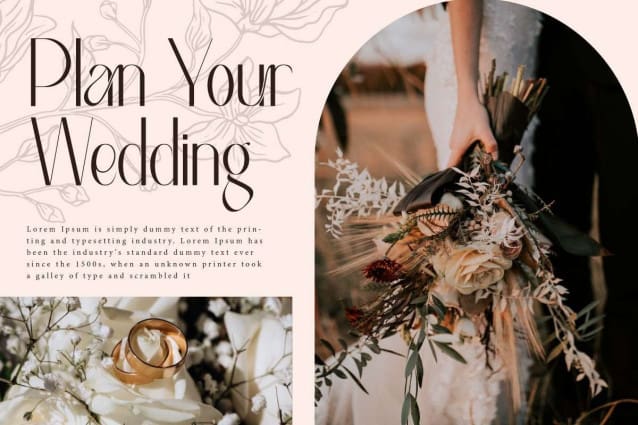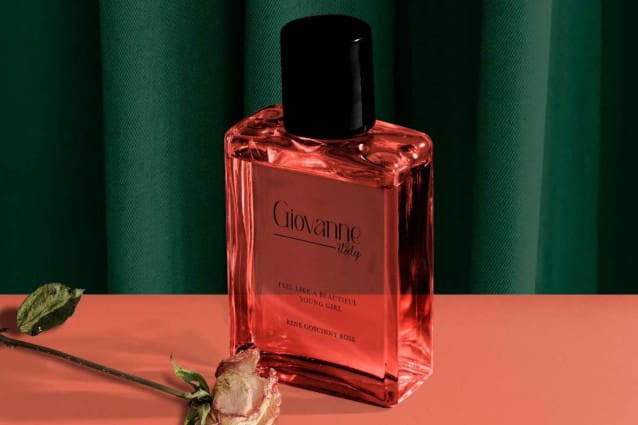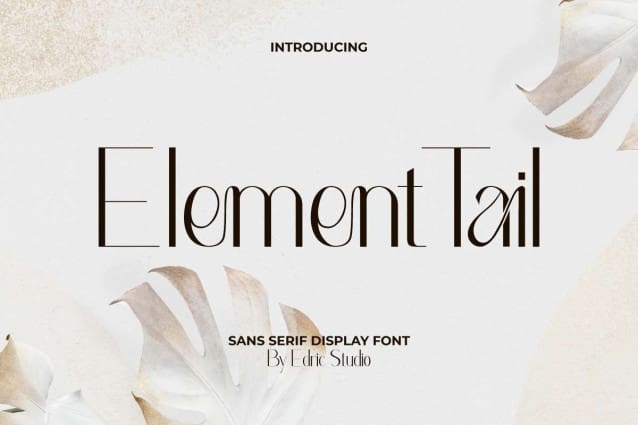
Element Tail Font
Element Tail Font is a stunning display font with beautiful ligature characters. It’s charming because when put together it creates a shape of letters that bends perfectly because it also looks thin and elegant, it will be suitable for any industry, such as accessories, architect, boutique, café, entertainment, fashion designer, florist, handicraft, jewelry, perfume brand, photography, printing, publishing, restaurant, skincare, spa salon, wedding planner, writer, and many more.
Element Tail Font comes with full set of Uppercase and Lowercase Basic Characters, Number, a large range of Punctuation, Symbol, and Ligature. It has a stunning characters set, perfectly managed with well spaced and kerning. Element Tail Font will be able to complement for any project (with extended license) including: billboard, brand logo, brochure, catalogue, cover, greeting card, header, invitation, label, packaging design, quotes, screen print, signage, stationery, sticker, title, website, etc.